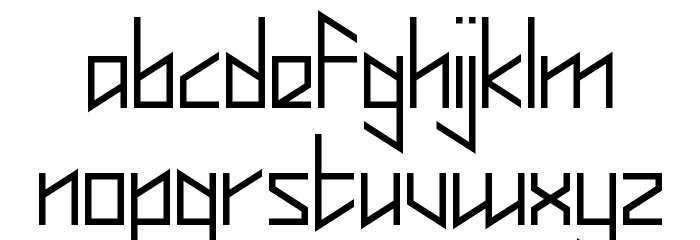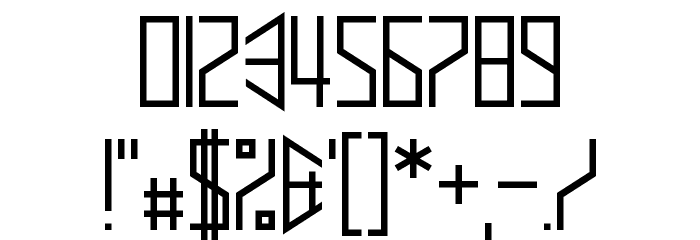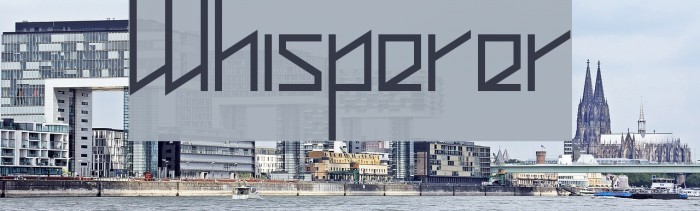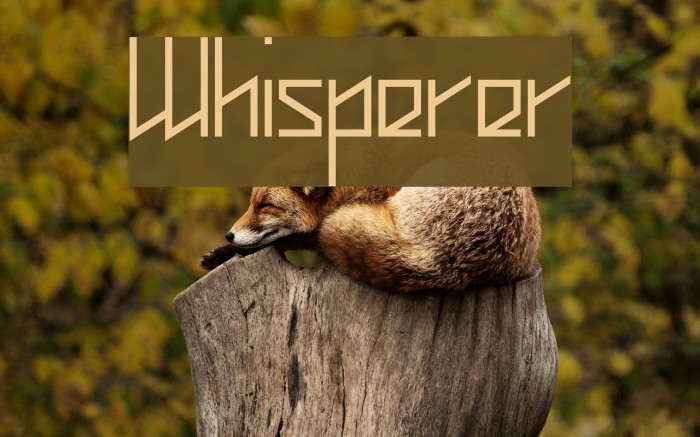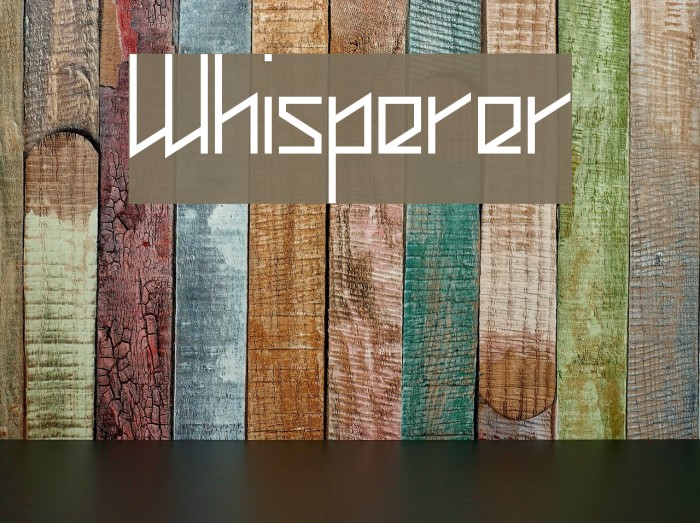
Whisperer Font
This font features a geometric and angular design, characterized by sharp edges and a consistent line weight throughout. The uppercase and lowercase letters maintain a uniform height, creating a cohesive and structured appearance. The numerals and special characters follow the same angular style, enhancing the overall modern and futuristic aesthetic. The font's clean lines and minimalistic approach make it suitable for projects that require a contemporary and edgy look.
A geometric, angular font with a modern and futuristic style.
- Proposed Projects: Ideal for tech branding, modern posters, futuristic designs, and digital interfaces.